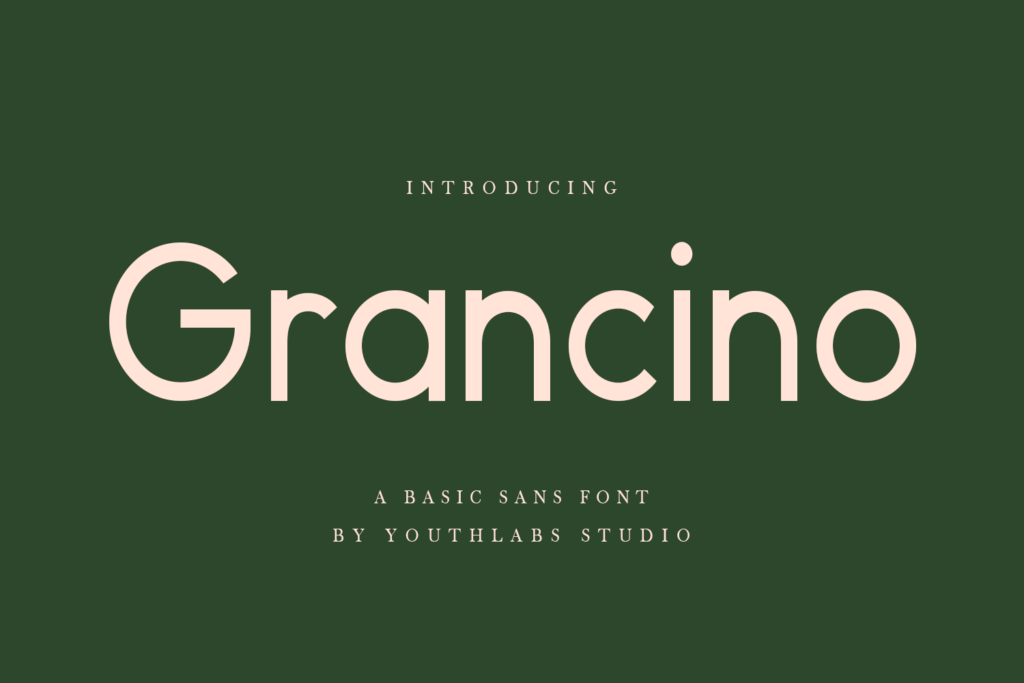
Grancino Font
Grancino is a basic sans-serif font that shows a simple and elegant side and is very suitable for making product logos and displays in magazines, lookbooks, catalogs and others. Can make it easier to convey the message in your design and create a unique impression of bold and aesthetic looks.
Grancino Sans Serif Font